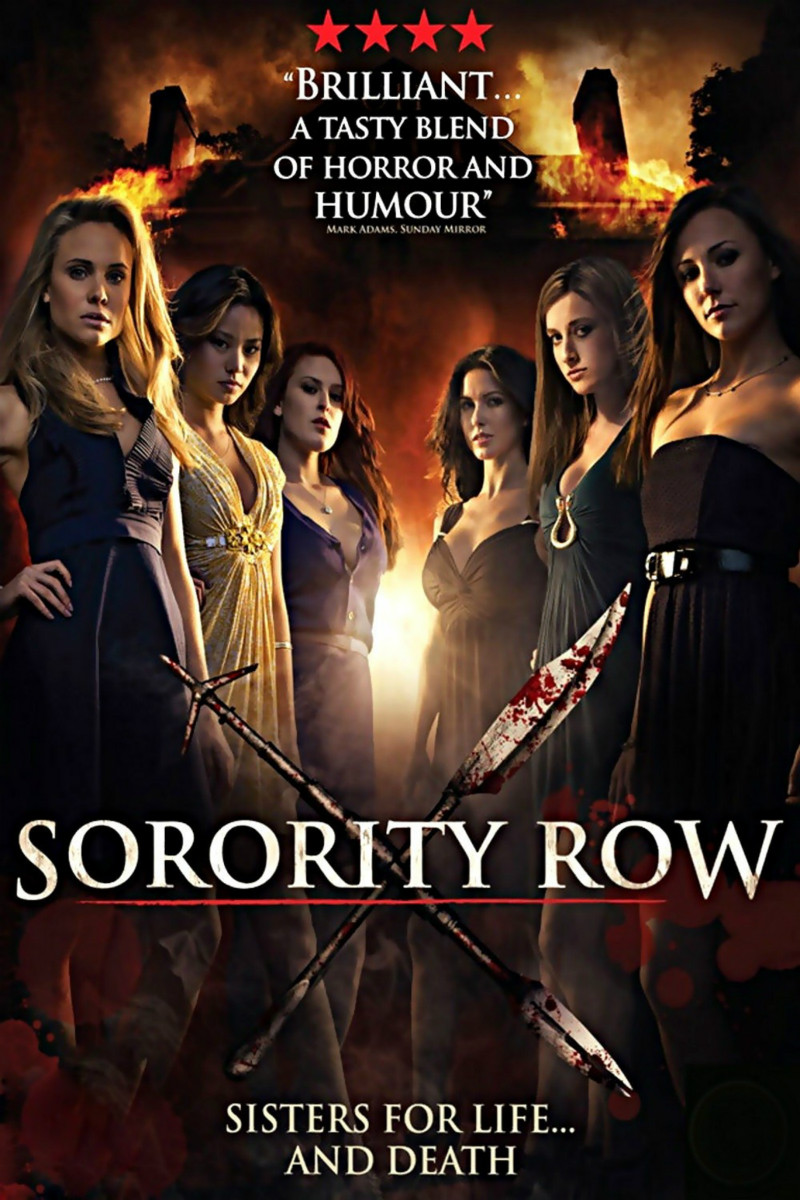
Sorority Row Font
Fonts in UseSorority Row is a 2009 slasher film about a group of sorority sisters who accidentally kill one of their own and then become the targets of a mysterious killer who is out for revenge. The movie is a remake of the 1983 horror film "The House on Sorority Row."
The "Sorority Row" movie poster features the title in Trajan Bold, a typeface designed by Carol Twombly for Adobe. This old style serif font draws inspiration from the letterforms of Roman square capitals.